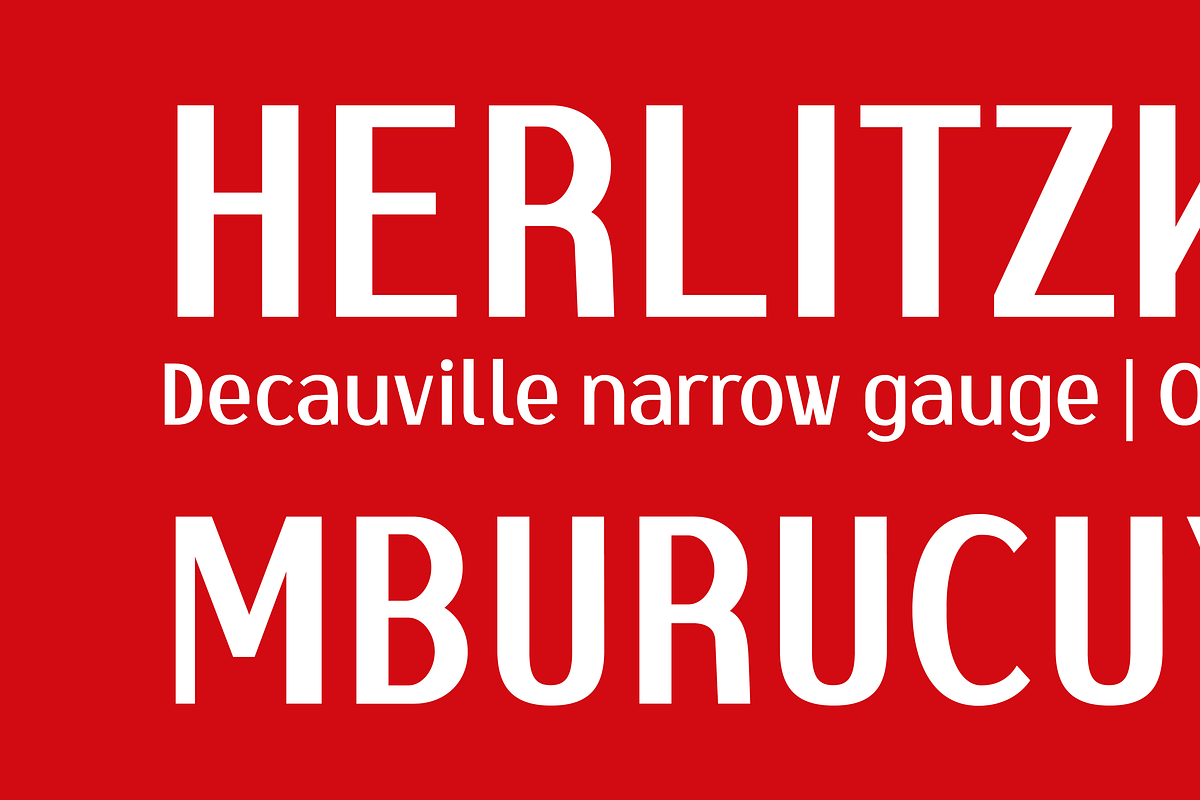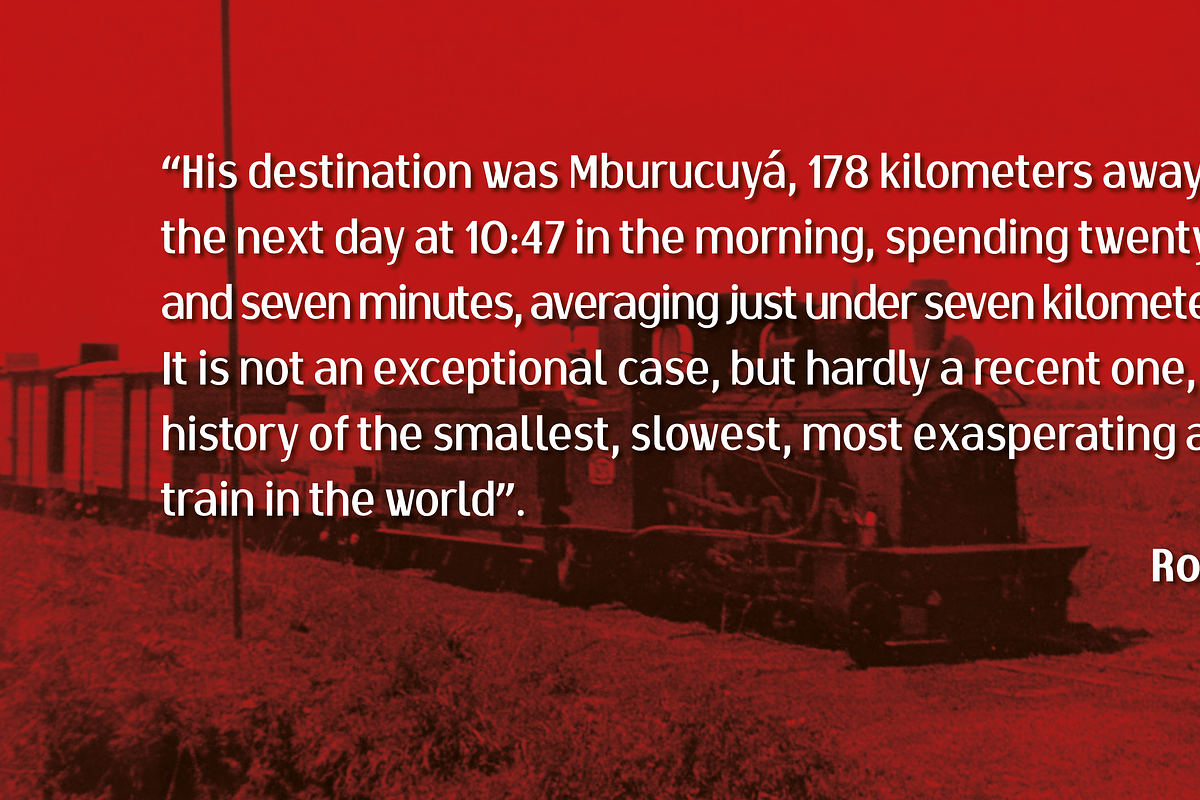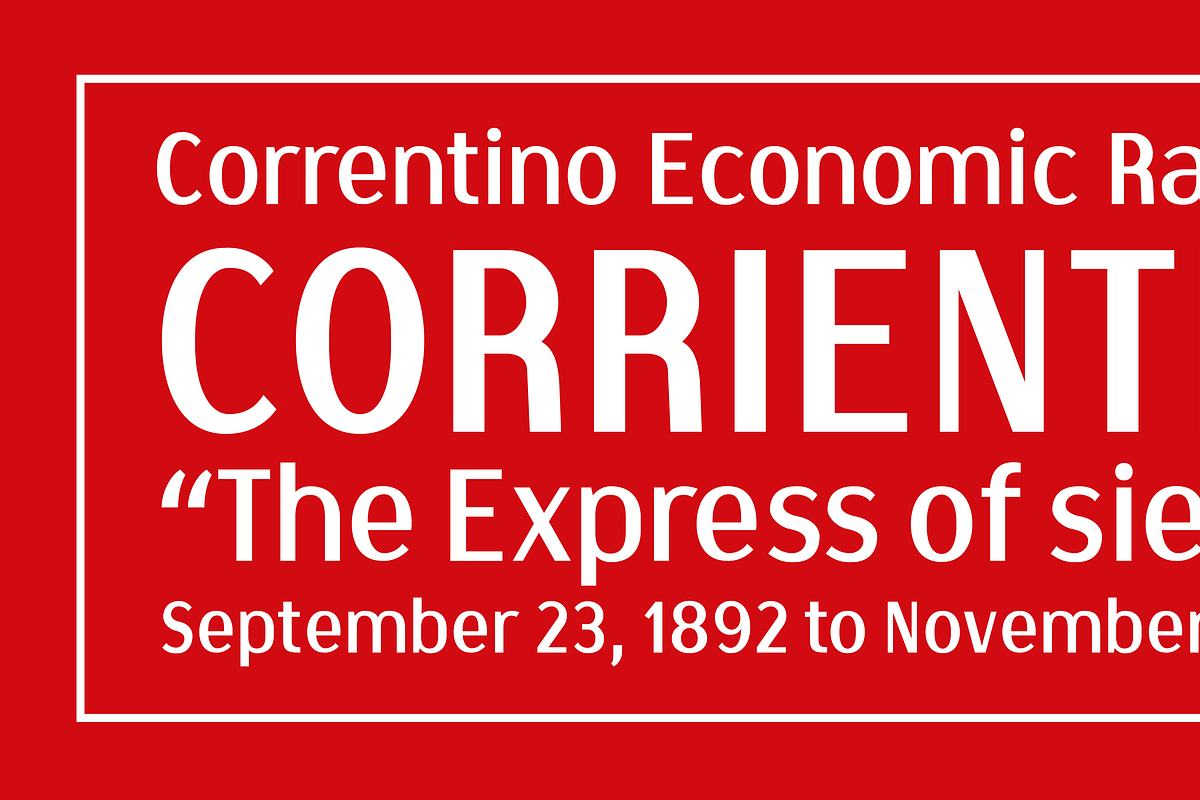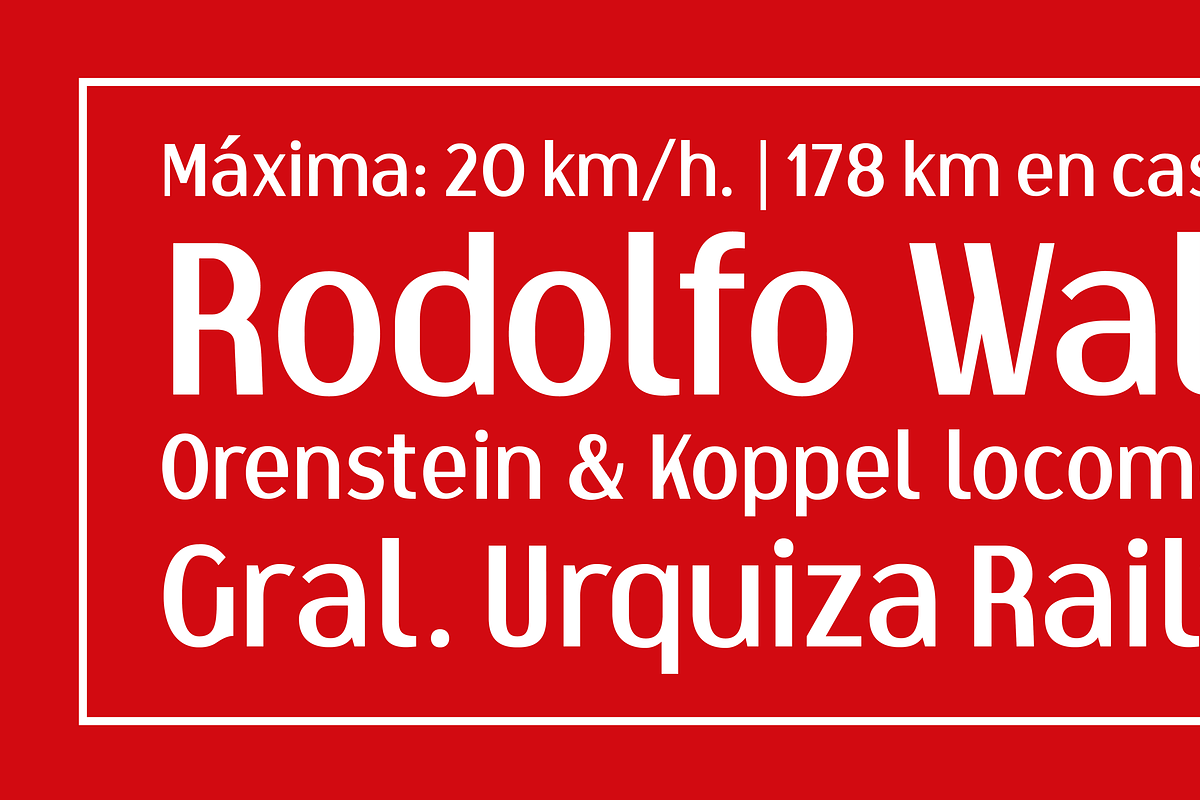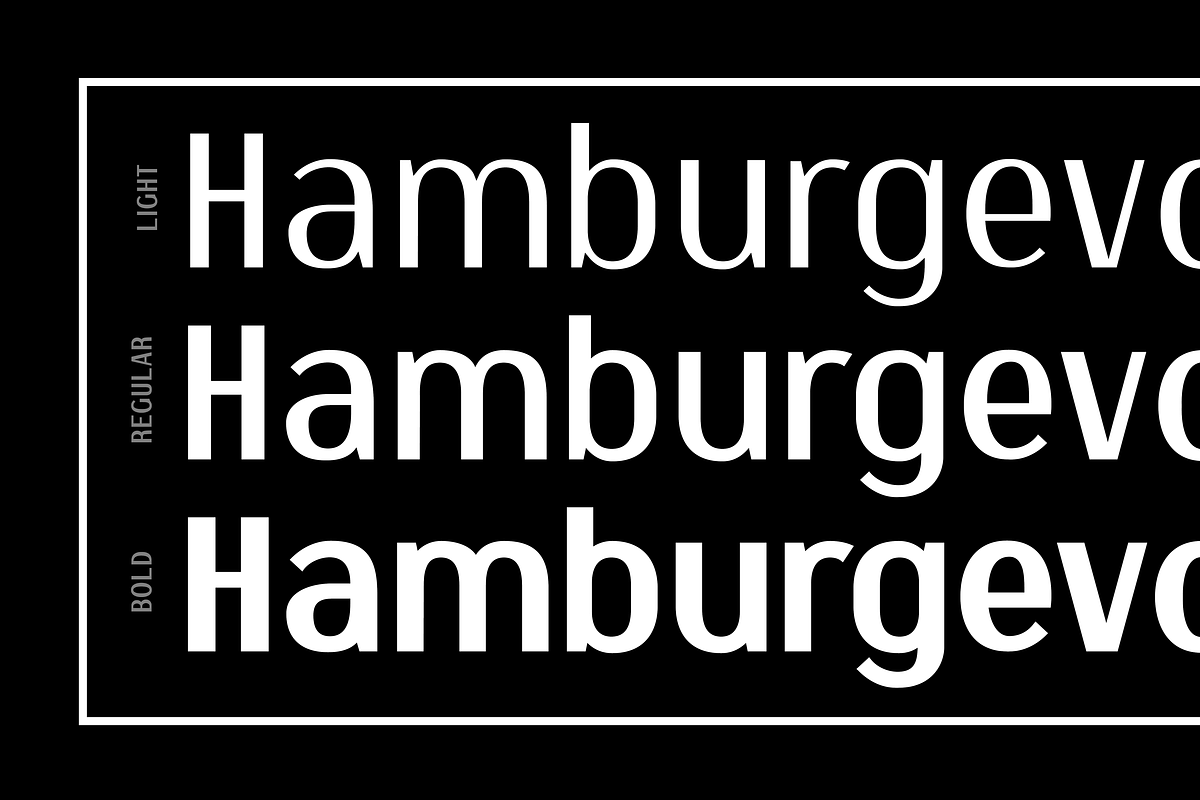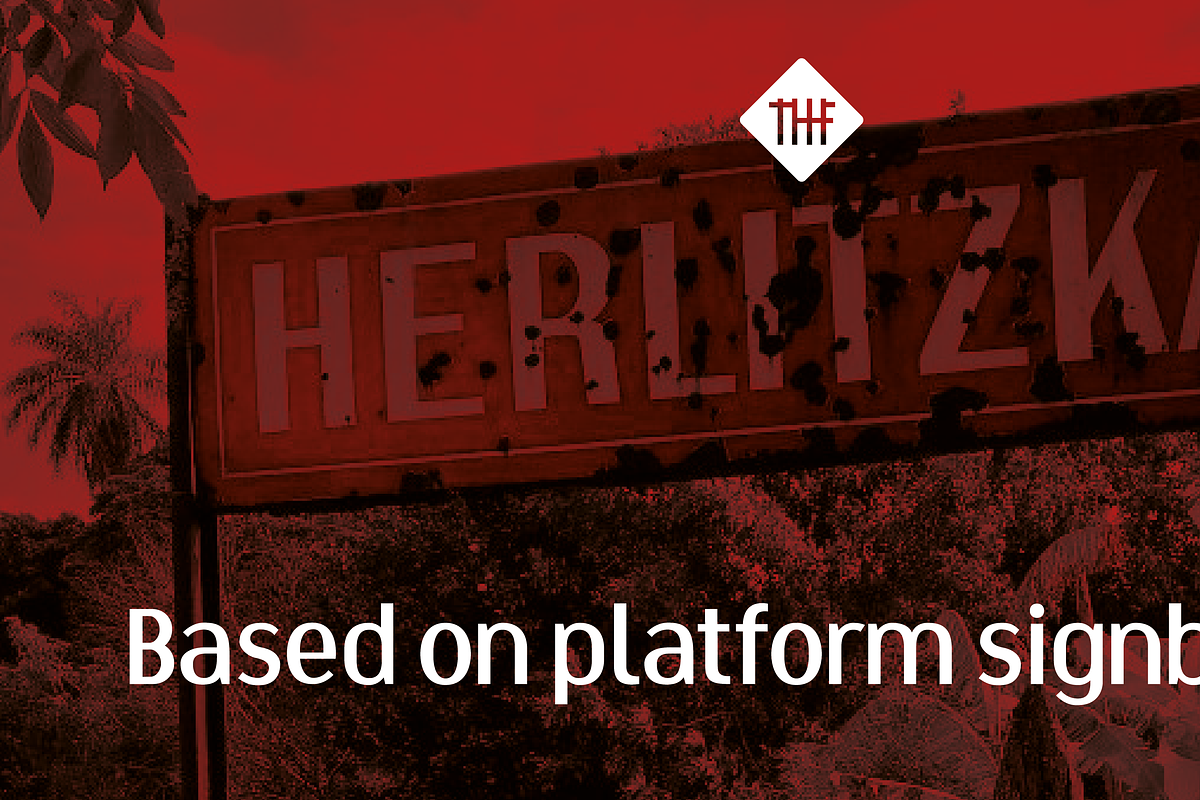
Correntino Railway
Correntino Railway is a humanist sans serif typeface inspired by the signboards of the Argentine Correntino Economic Railway. Its design features elementary geometric shapes, vertical line modulation, and slight contrast. The font evokes a sense of history and neutrality, making it suitable for signage, branding, and display text applications.